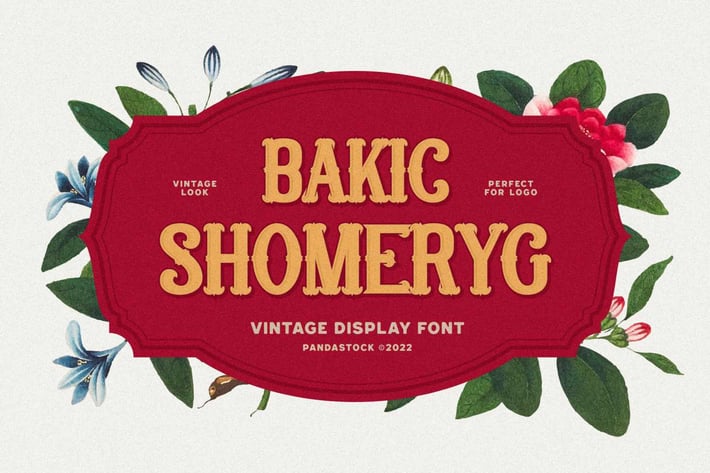
Bakic Shomeryg - Vintage Cursive Font
imoodev
Bakic Shomeryg is vintage cursive font, this typeface has smooth curves and a visual style a can embodies charm and elegance in every lettering, making your work look stunning and attractive.
A versatile font that works in both large and small sizes, suitable for a wide variety of projects such as a display for headings, logos, invitations, branding, magazine, photography, card, product packaging, product mockup, mugs, posters, labels, signatures, editorials, art deco, any type of advertising purpose.
These creative fonts are perfect for business fonts such as personal projects, studios, corporate, company, creative agency, industrial, etc.